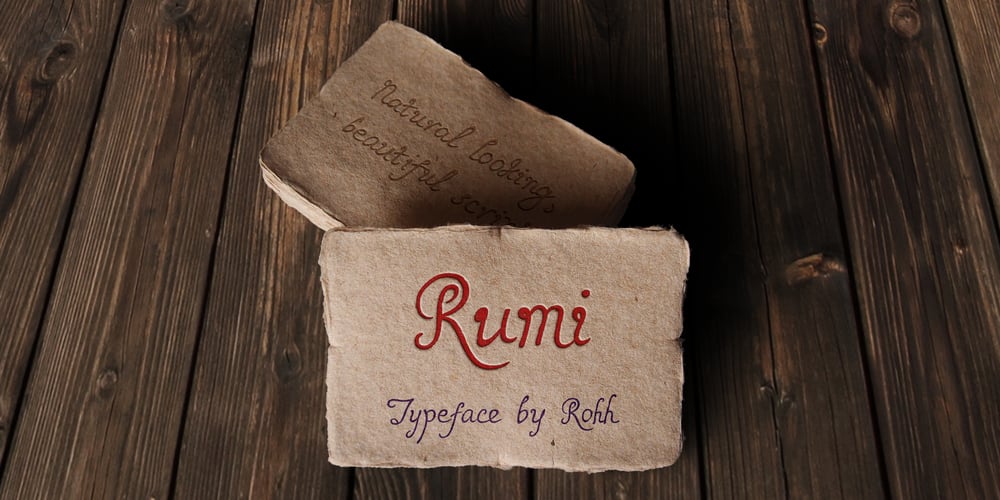
Rumi Font Family was designed by Roch Modrzejewski and published by ROHH. Rumi contains 1 styles and family package options. Rumi is a script font with organic and natural feel, designed to look as true handwriting. It has a calligraphic touch and shaky, unpredictable execution, being very clear and readable at the same time. In order to achieve realistic look, Rumi features 4 variations of lowercase characters, figures and punctuation. The font mixes randomly all four versions after activating OpenType “calt” feature. Many ligatures help to create even more unrepeatable settings. Rumi has an extended character set of more than 900 glyphs containing alternate styles, standard and discretionary ligatures, symbols, ordinals and case-sensitive forms. It suppors Central, Eastern as well as Western European languages. Rumi is great for all kinds of projects that need strong, personal feeling and natural, organic look.